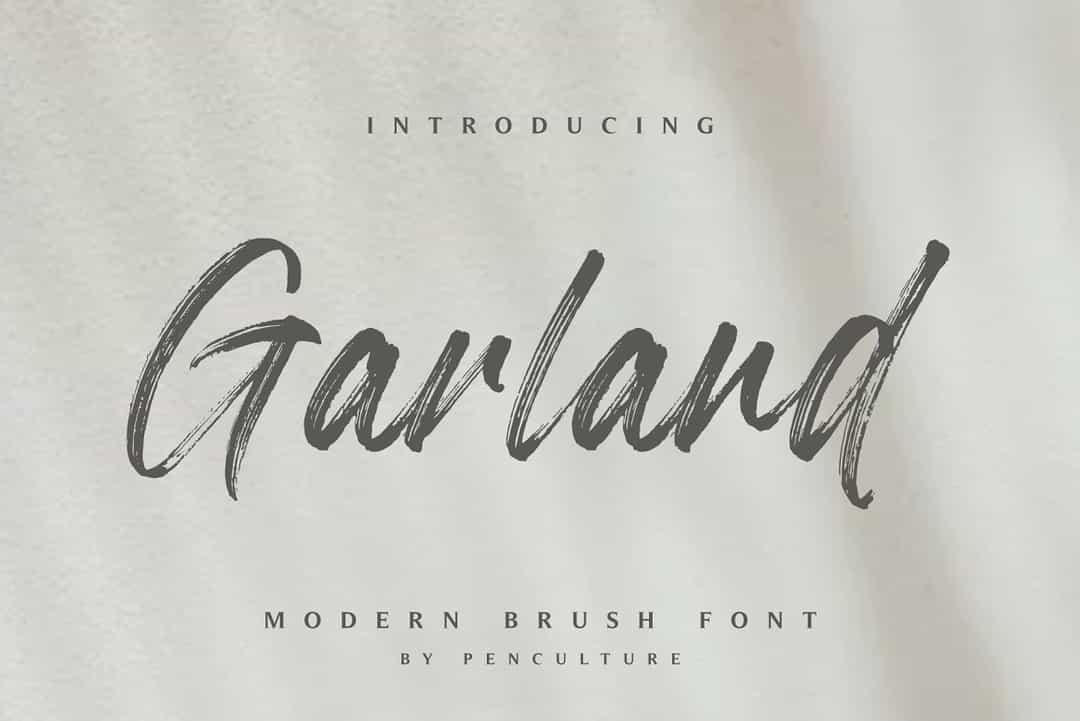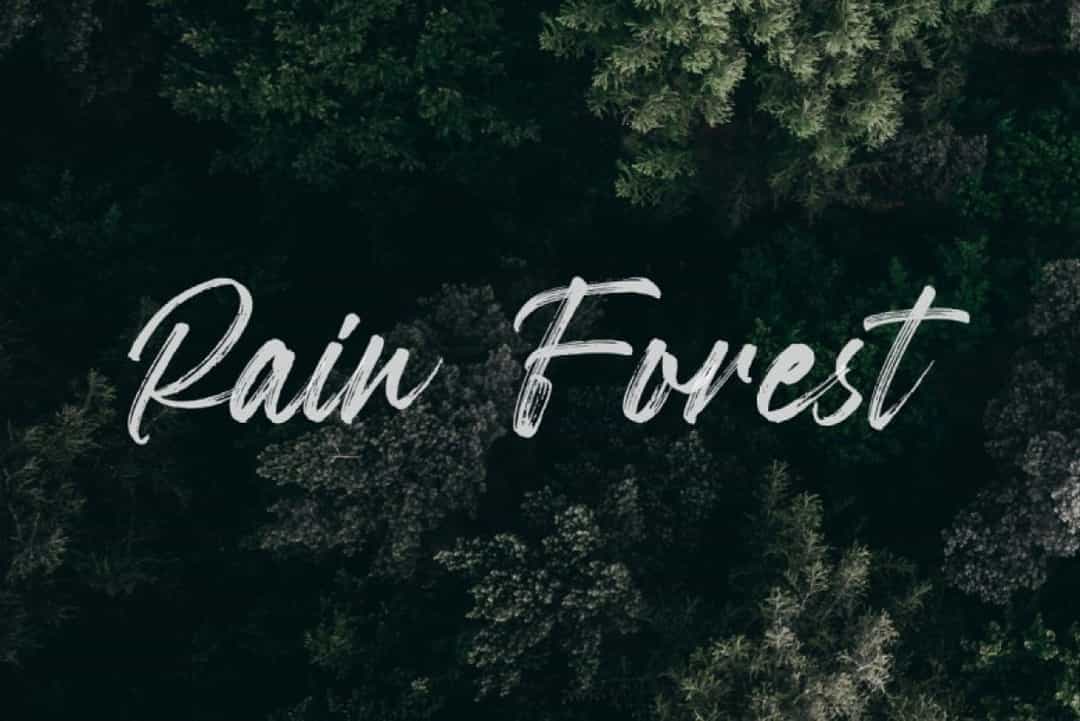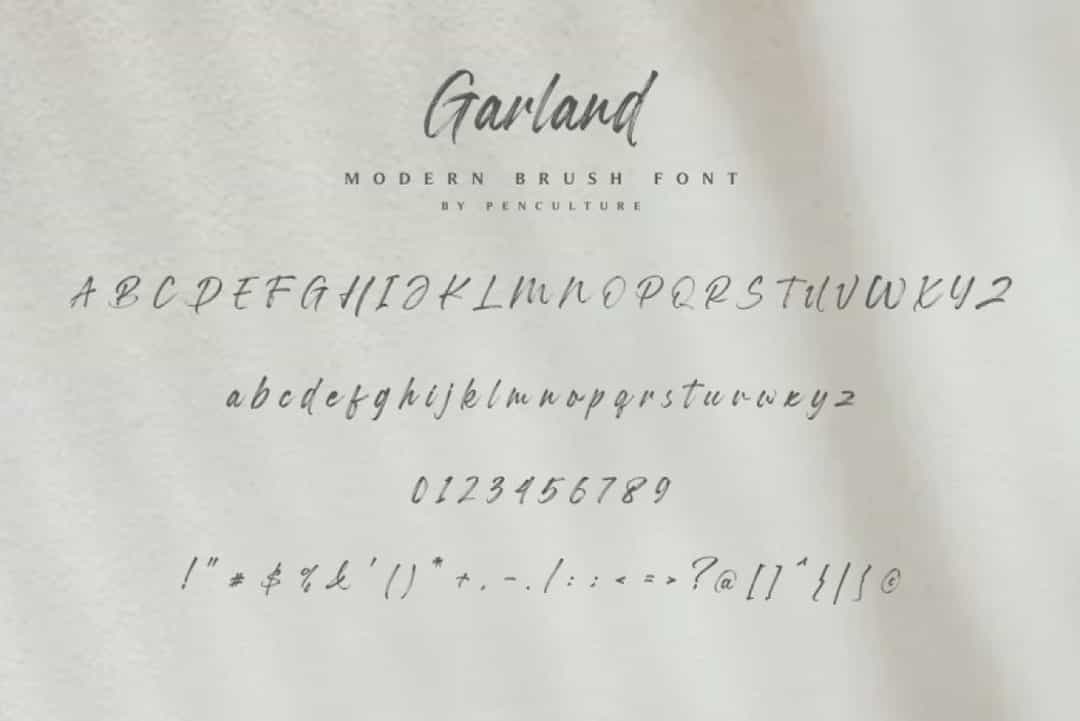
Discover Garland Font, part of the Brush collection—a versatile and unique font perfect for adding a personal touch to your projects. Download it for free and enjoy crafting designs with style, from invitations to social media posts. This font is available exclusively for personal use, giving you the freedom to create without limits. Unlock your creativity with Garland Font today!
Garland garland is an elegant brush typeface, featuring natural brush strokes. Perfect for logos, posters and product labels packaging designs; Garland comes with punctuation marks, caps numbers and much more – it is user friendly too – why wait any longer. Give Garland a try now.